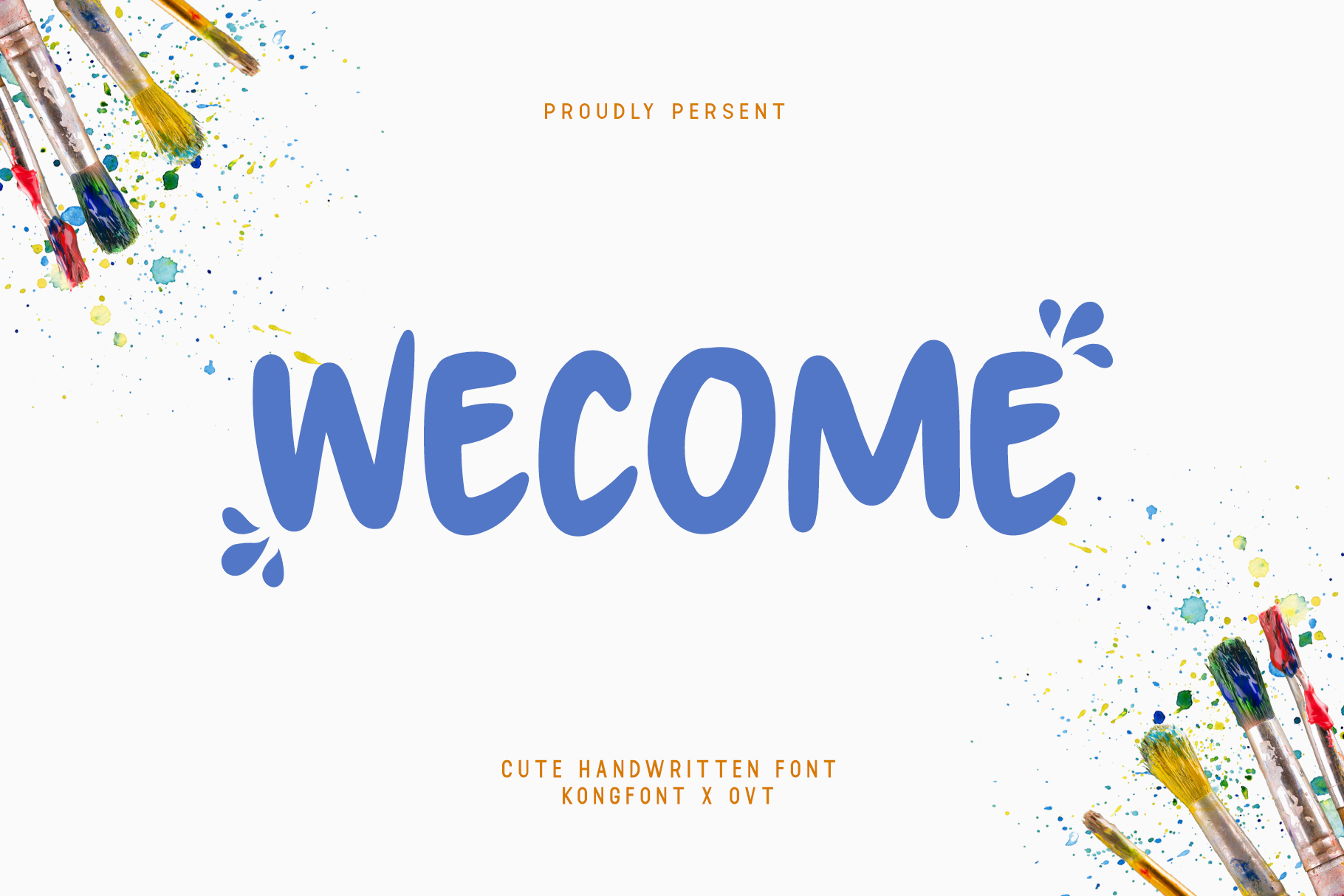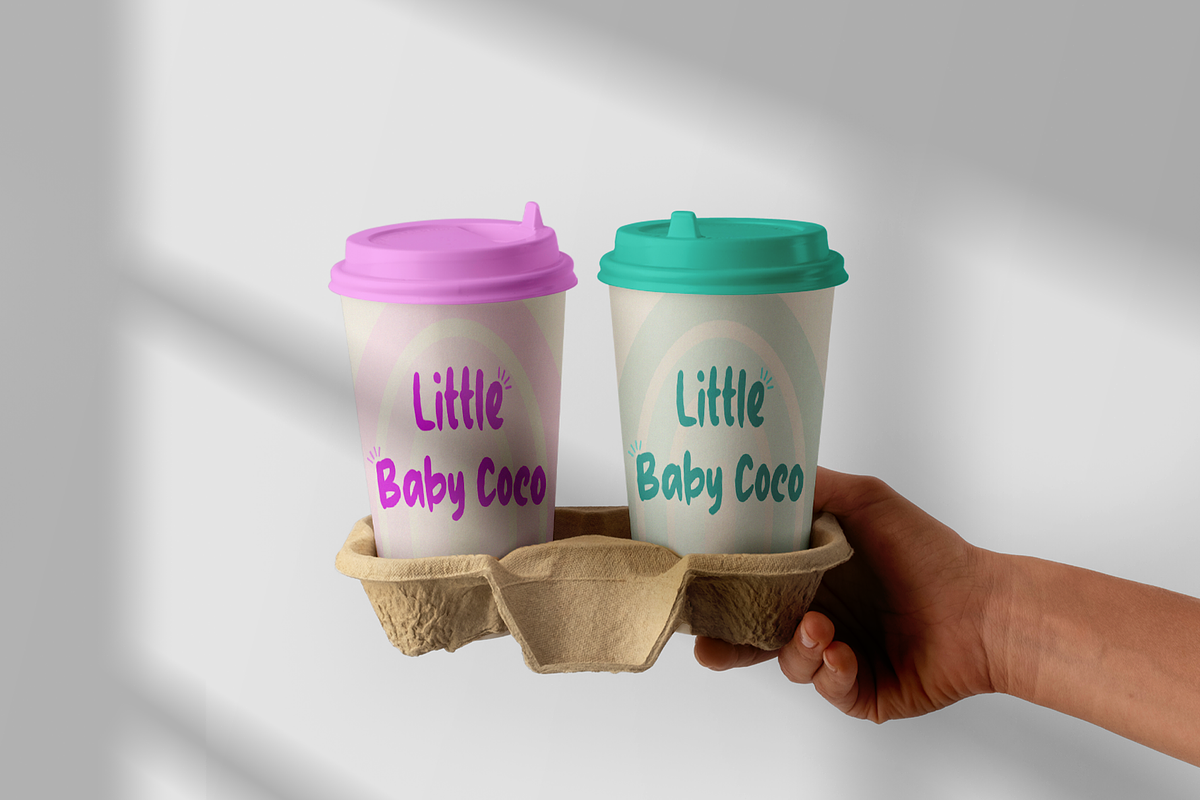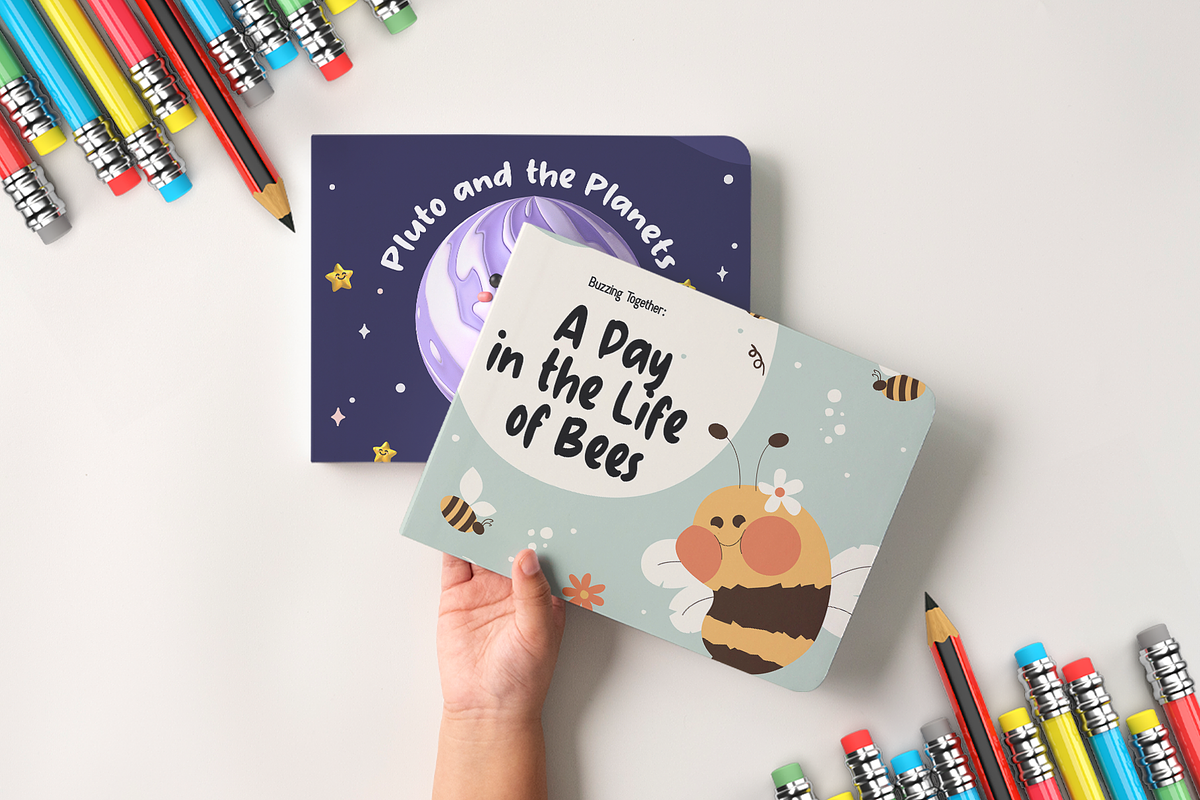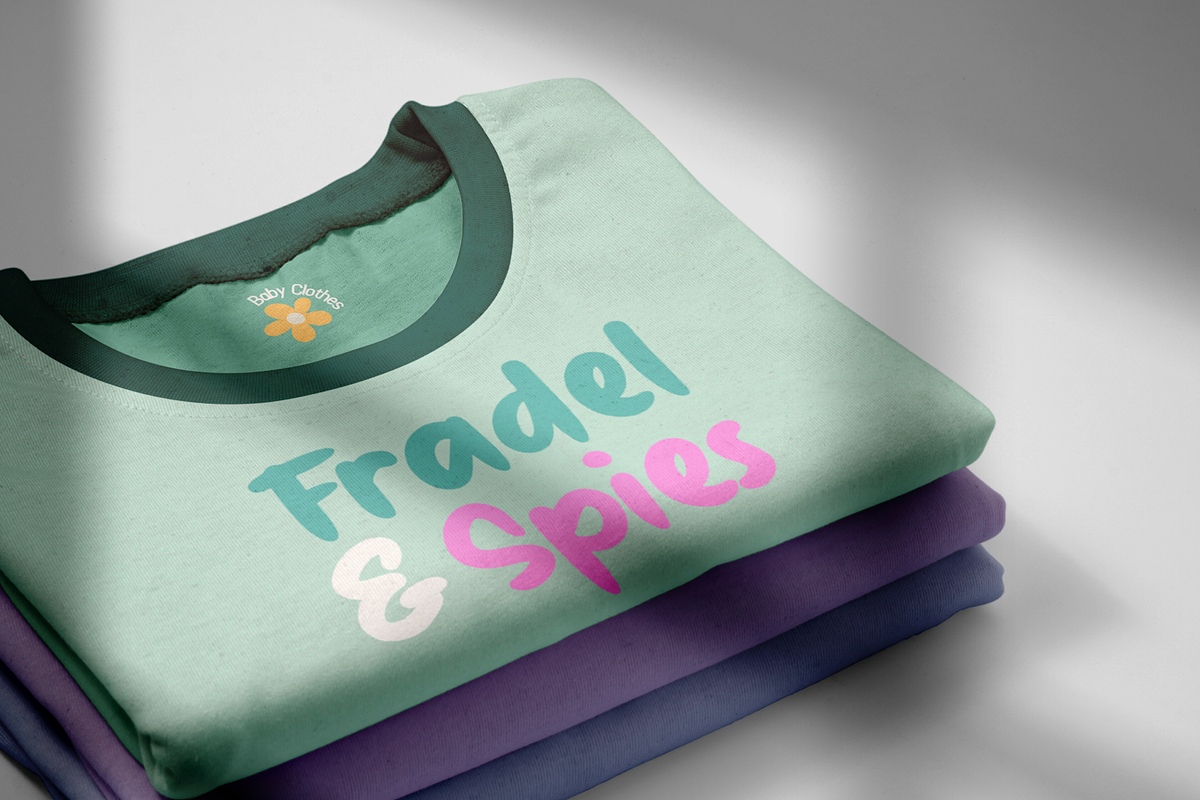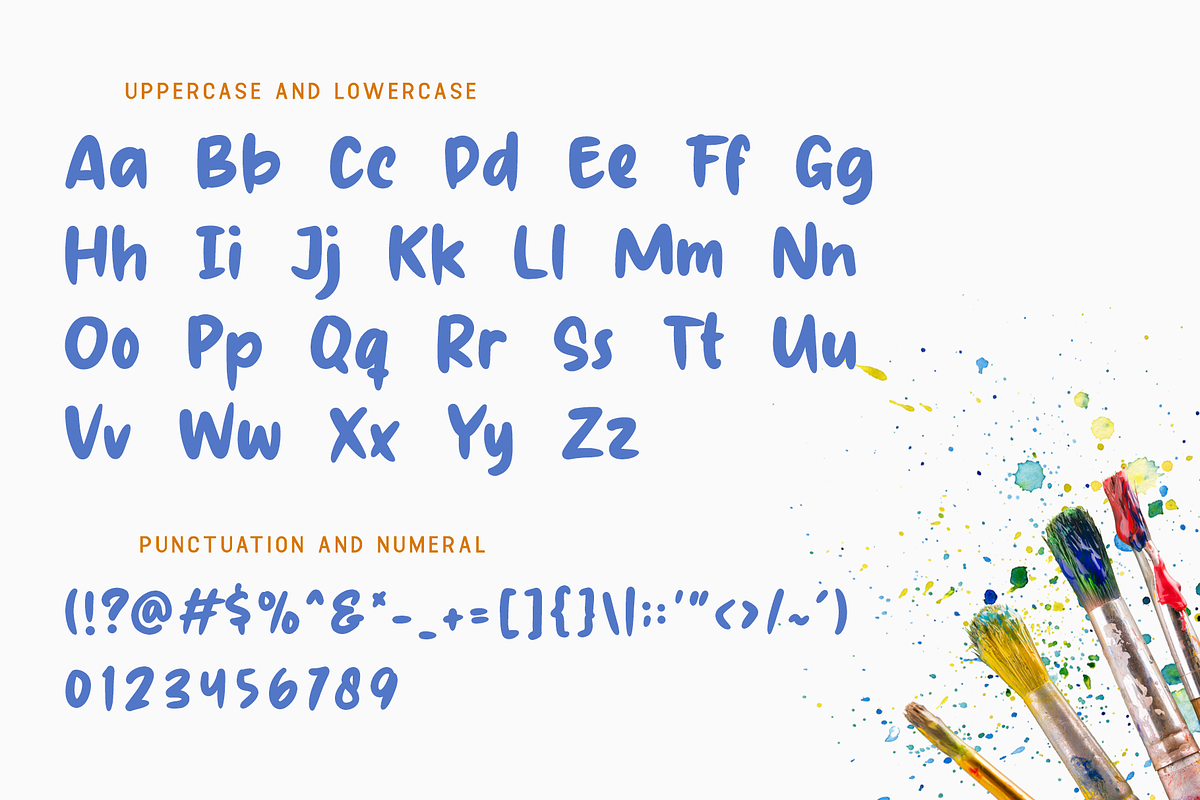
Wecome - Cute Handwritten Font
Say hello to "Wecome," a delightful handwritten font that adds a touch of whimsy and personality to your projects. With its playful strokes and charming quirks, Wecome brings joy and warmth to any design endeavor.
Crafted with care and attention to detail, Wecome is perfect for creating invitations, greeting cards, social media graphics, and more. Its friendly demeanor and casual style make it ideal for projects aimed at capturing the hearts of your audience.
Featuring a full range of characters and glyphs, Wecome offers versatility and flexibility for all your creative needs. Whether you're crafting a lighthearted message or adding a playful accent to your branding, this font is sure to delight.
Add a dose of cuteness to your designs with Wecome and let your creativity shine.